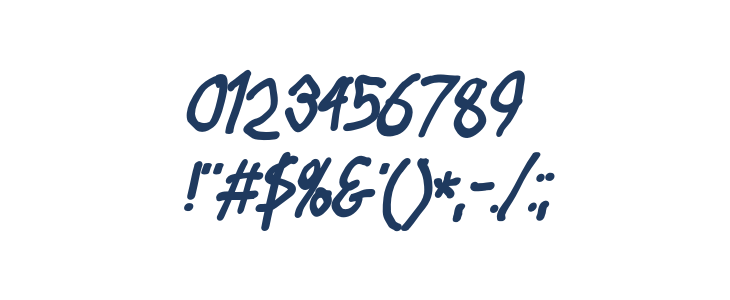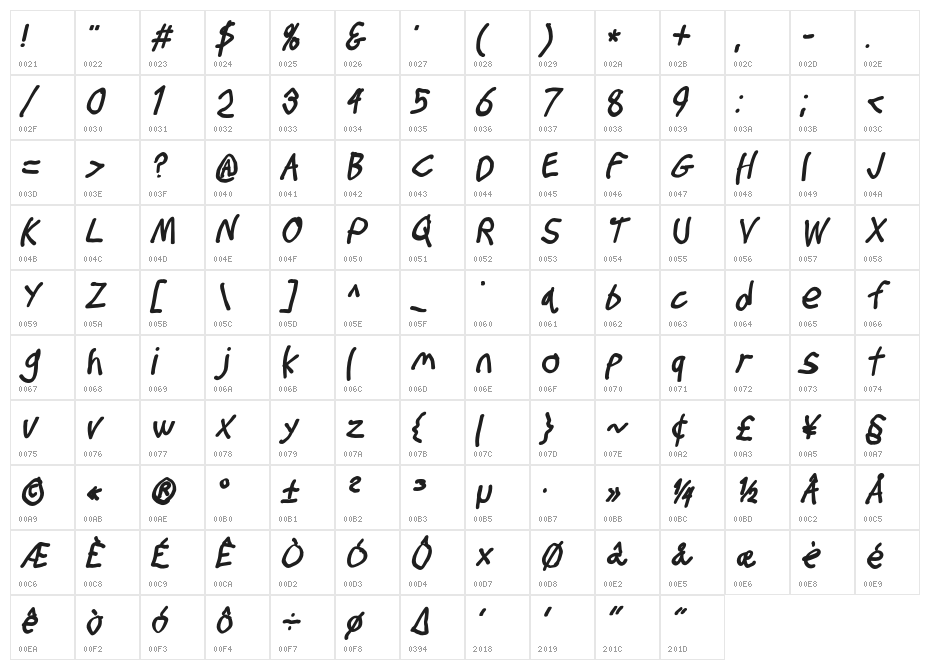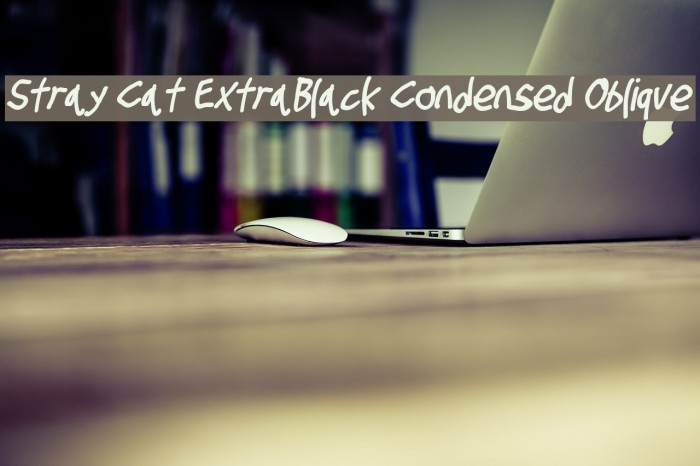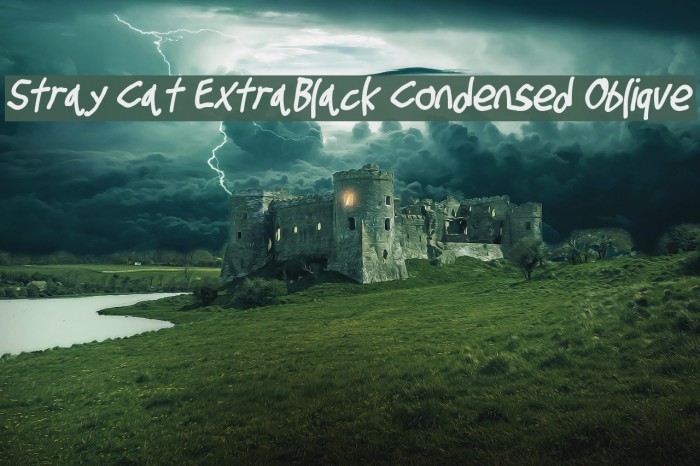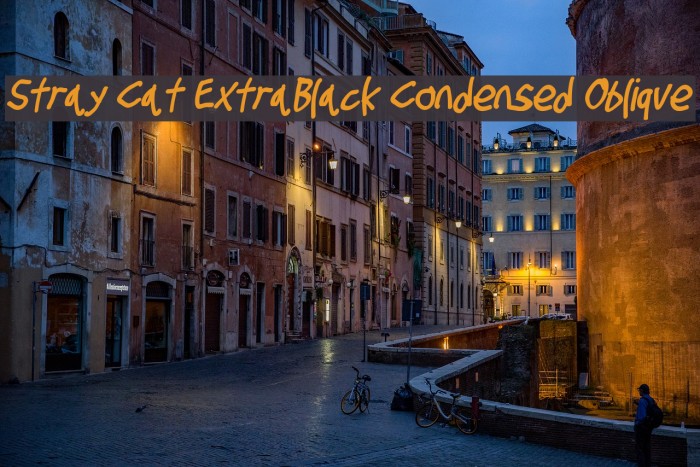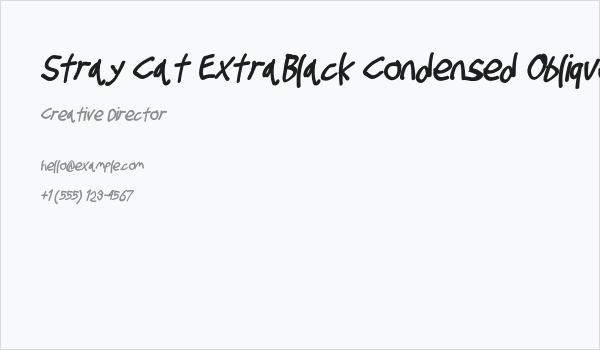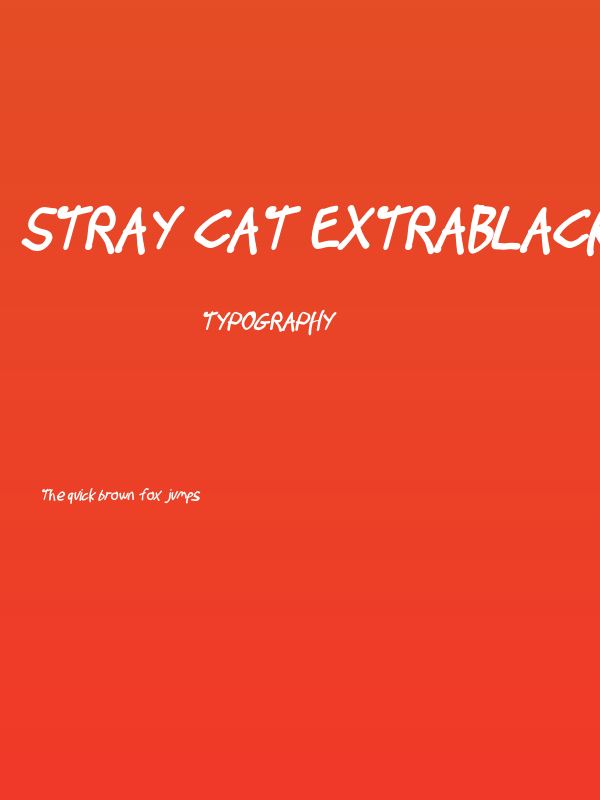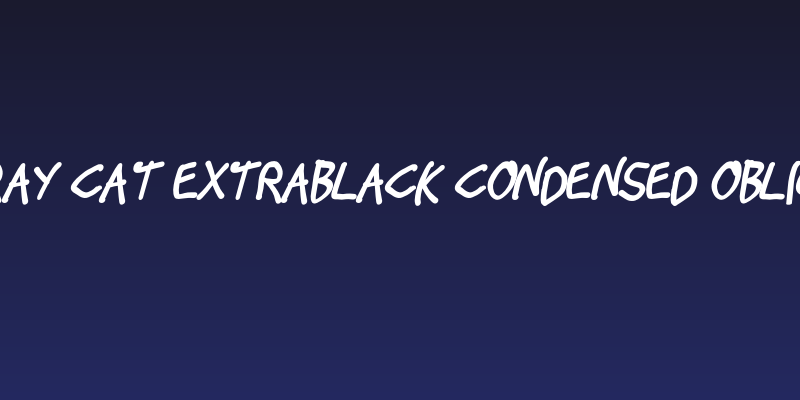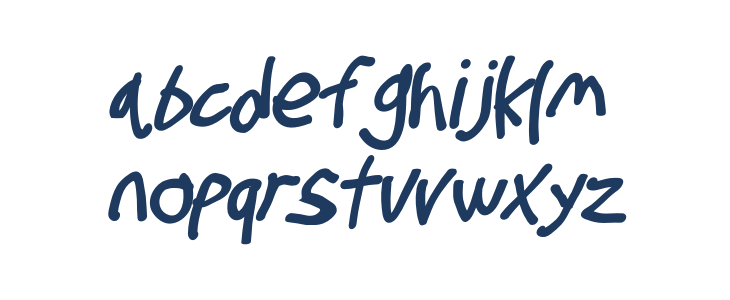
Stray Cat ExtraBlack Condensed Oblique Font
Stray Cat ExtraBlack Condensed Oblique Description
This font exhibits a bold and dynamic handwritten style, characterized by its thick strokes and condensed form. The letters are slightly slanted, giving an oblique appearance that adds a sense of motion and energy. The uppercase and lowercase letters maintain a consistent style, with rounded edges and a casual, informal feel. The numerals and special characters follow the same design ethos, ensuring uniformity across all glyphs. This font is particularly suitable for projects that require a personal touch or a playful, artistic vibe.
| Proposed Projects | Ideal for creative projects such as posters, greeting cards, and branding materials that aim to convey a personal or artistic touch. |